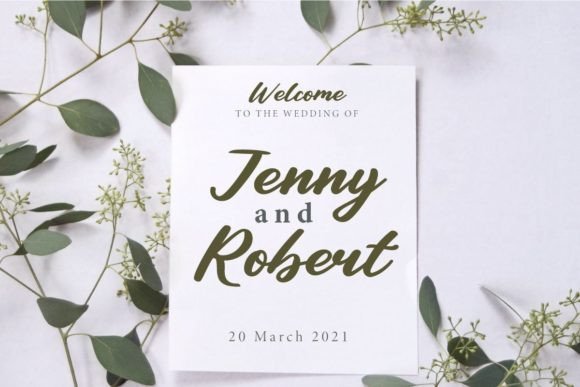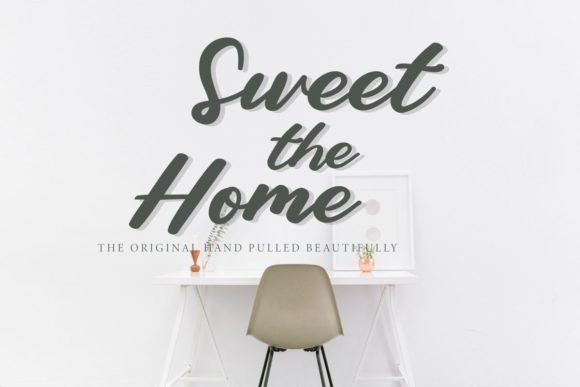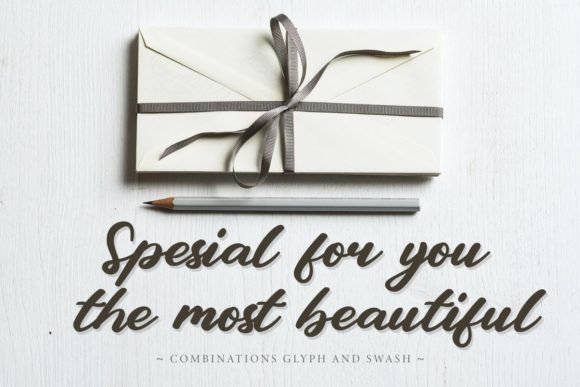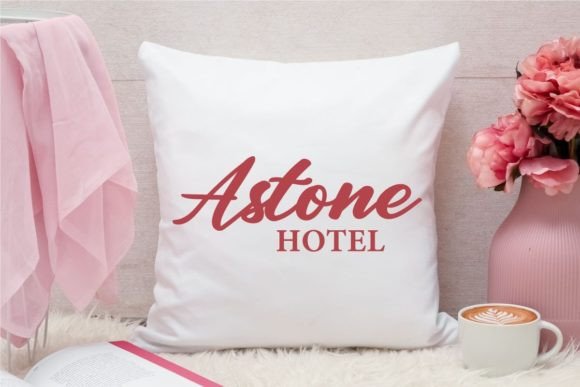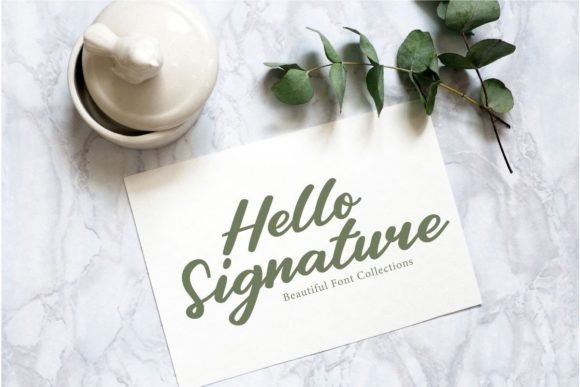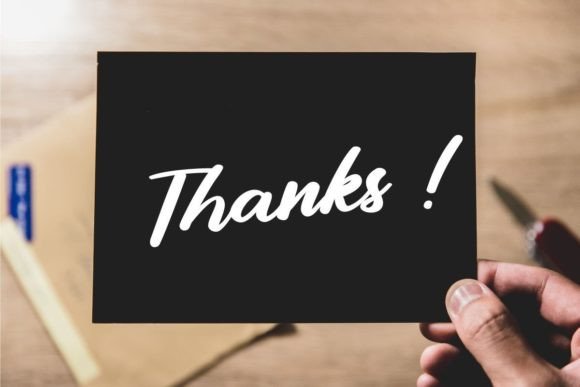
Introduction to Keegan Font
Have you ever been brainstorming a creative project, and the perfect font just slipped through your fingers? That’s exactly what happened to me when I stumbled upon the stunning Keegan Font. Its beautiful, handwritten style immediately caught my attention, and I knew I had to learn more about this design treasure.
Keegan Font is a high-quality font that’s perfect for designers who want to add a touch of elegance and sophistication to their projects. With its unique, cursive style, it’s ideal for wall displays, wedding invitations, social media post logos, and more. Whether you’re a seasoned designer or just starting out, Keegan Font is a valuable resource that’s sure to elevate your designs.
Key Features of Keegan Font
- High-quality, hand-drawn design for creative projects
- Includes 5 unique font styles with varying weights and styles
Honest Review: Keegan Font
I recently stumbled upon the Keegan Font, a high-quality design resource that caught my attention. The font’s unique aesthetic and versatility make it an excellent addition to any creative project.
Here are some things that work well with the Keegan Font: ✨
- High-quality design: The Keegan Font is well-crafted and displays a high level of detail.
- Wide range of applications: The font can be used in various creative projects, from logos to brochures.
However, there are some limitations to consider: ⚠️
- Limited font weights: The Keegan Font only comes in a limited number of font weights, which may not be suitable for all design projects.
- No italic or bold versions: The font does not have italic or bold versions, which may limit its use in certain situations.
Overall, I’m impressed with the Keegan Font. Its unique design and high-quality craftsmanship make it an excellent addition to any design resource library. While it has some limitations, it’s still a valuable asset for designers working on creative projects.
Tips for Getting the Most Out of Keegan Font
For the best results, use the Keegan Font on a transparent background to create a clean and modern look. You can also experiment with different font sizes and colors to add depth and visual interest to your design.
The Keegan Font is ideal for a variety of creative projects, including logos, branding materials, and digital graphics. Its high-quality design makes it a popular choice among designers and artists.
Alternatives to Keegan Font
The Great Vibes Font is a high-quality, elegant script font perfect for creative projects that require a touch of sophistication. It’s ideal for use in wedding invitations, business cards, and other design elements where a beautiful, cursive font is needed. When to use: For elegant and sophisticated designs, such as wedding invitations, or business cards. Compared to Keegan Font: Great Vibes Font has a more refined and elegant feel, making it suitable for high-end designs.
The Alex Brush Font is a beautiful, handwritten font with a touch of elegance and sophistication. It’s perfect for use in creative projects that require a high level of design quality, such as logos, branding, and marketing materials. When to use: For elegant and sophisticated designs, such as logos, branding, or marketing materials. Compared to Keegan Font: Alex Brush Font has a more refined and elegant feel, with a more subtle and understated design.